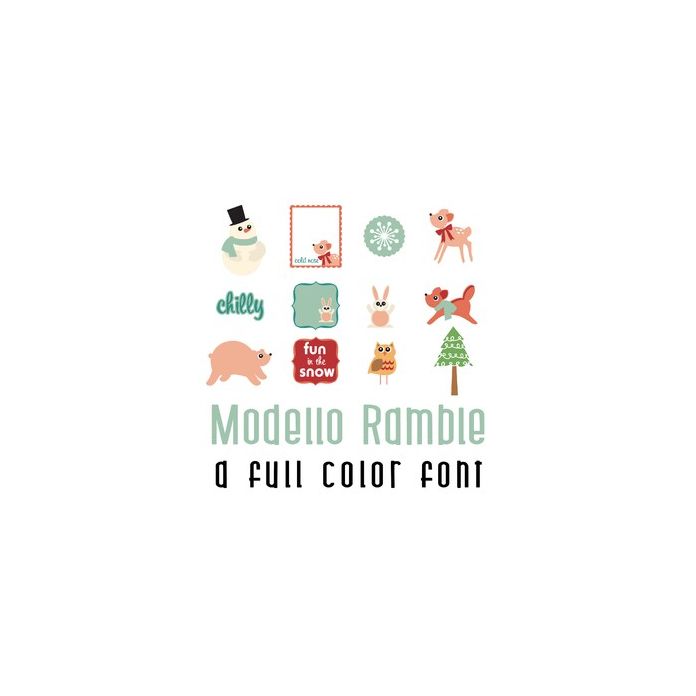
This adorable full-color doodlebat font features 26 wintery forest images. Perfect for cards, crafts, gifts, decor, scrapbook pages, planner stickers, and more!